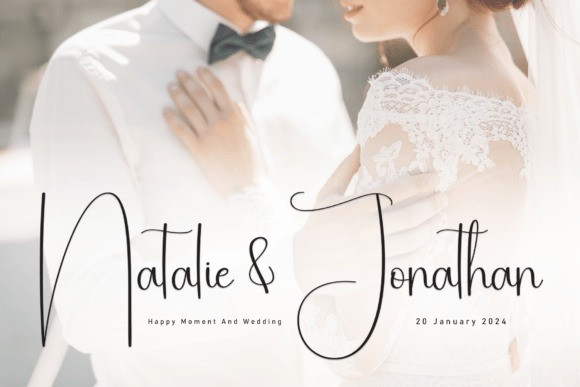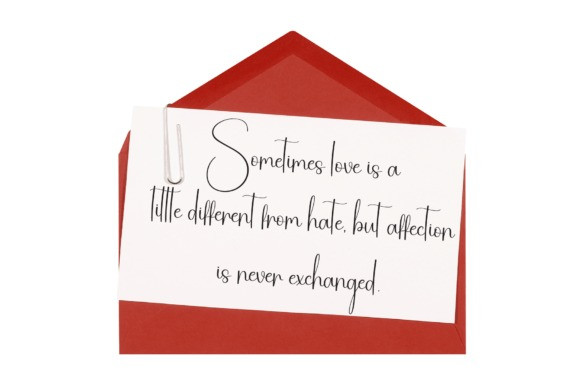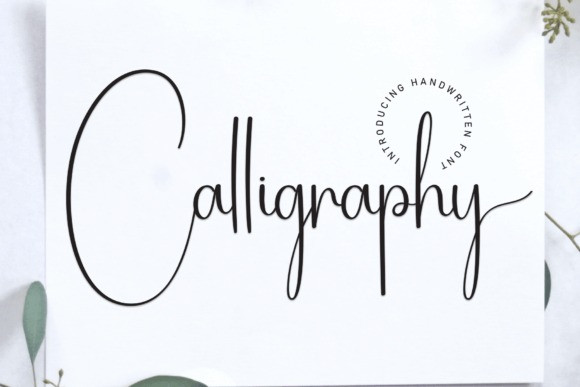
Calligraphy Handwriting Typeface
Calligraphy Handwriting Typeface is a fun and versatile handwritten font. Whether you’re using it for crafting, digital designing, presentations, or greeting card making, it’s perfect!